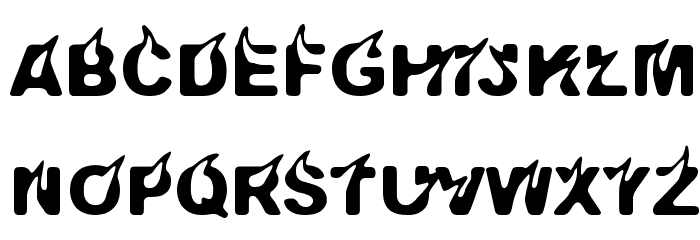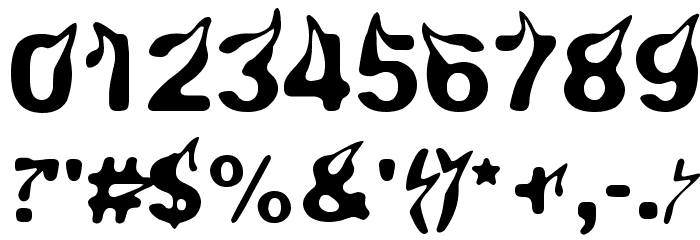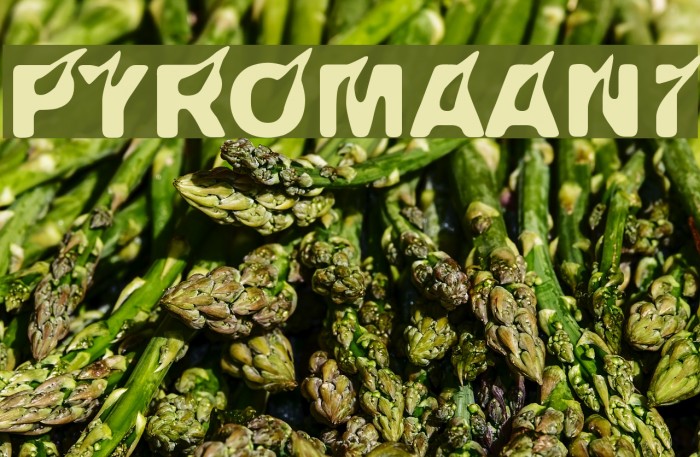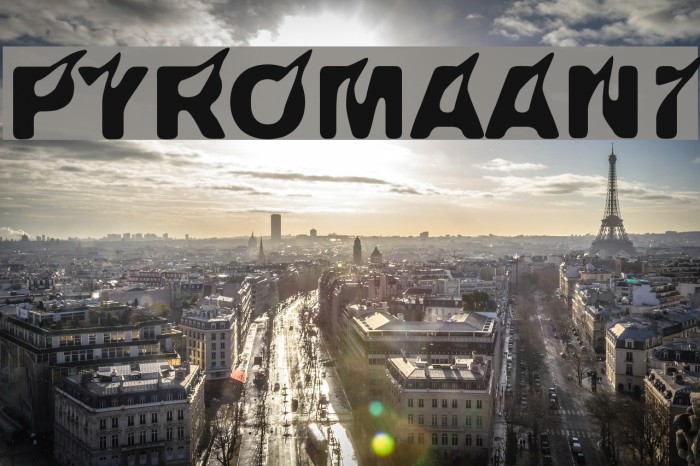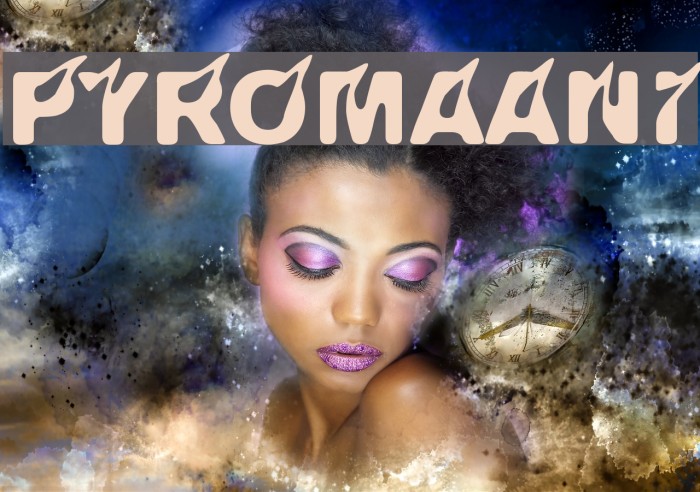
Pyromaani Font
This font features a bold and dynamic style with a distinctive, flame-like appearance. The characters are thick and robust, with unique, jagged edges that give the impression of movement and energy. The uppercase and lowercase letters maintain a consistent style, while the numbers and special characters complement the overall design. The font's boldness and decorative flair make it stand out, suitable for eye-catching designs that require a touch of intensity and creativity.
A bold, flame-inspired decorative font with dynamic, jagged edges.
- Proposed Projects: Ideal for projects needing a fiery, energetic touch, such as event posters, branding for extreme sports, or themed party invitations.